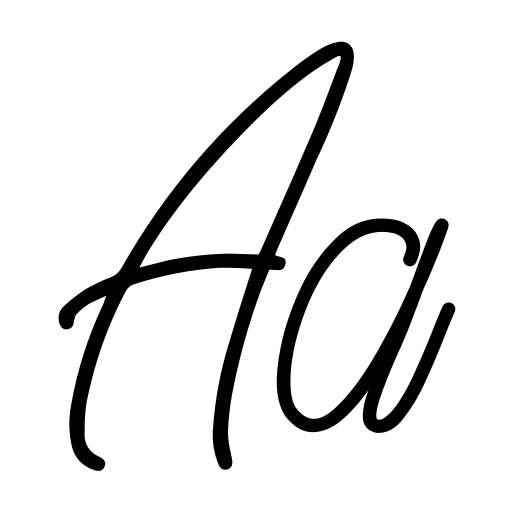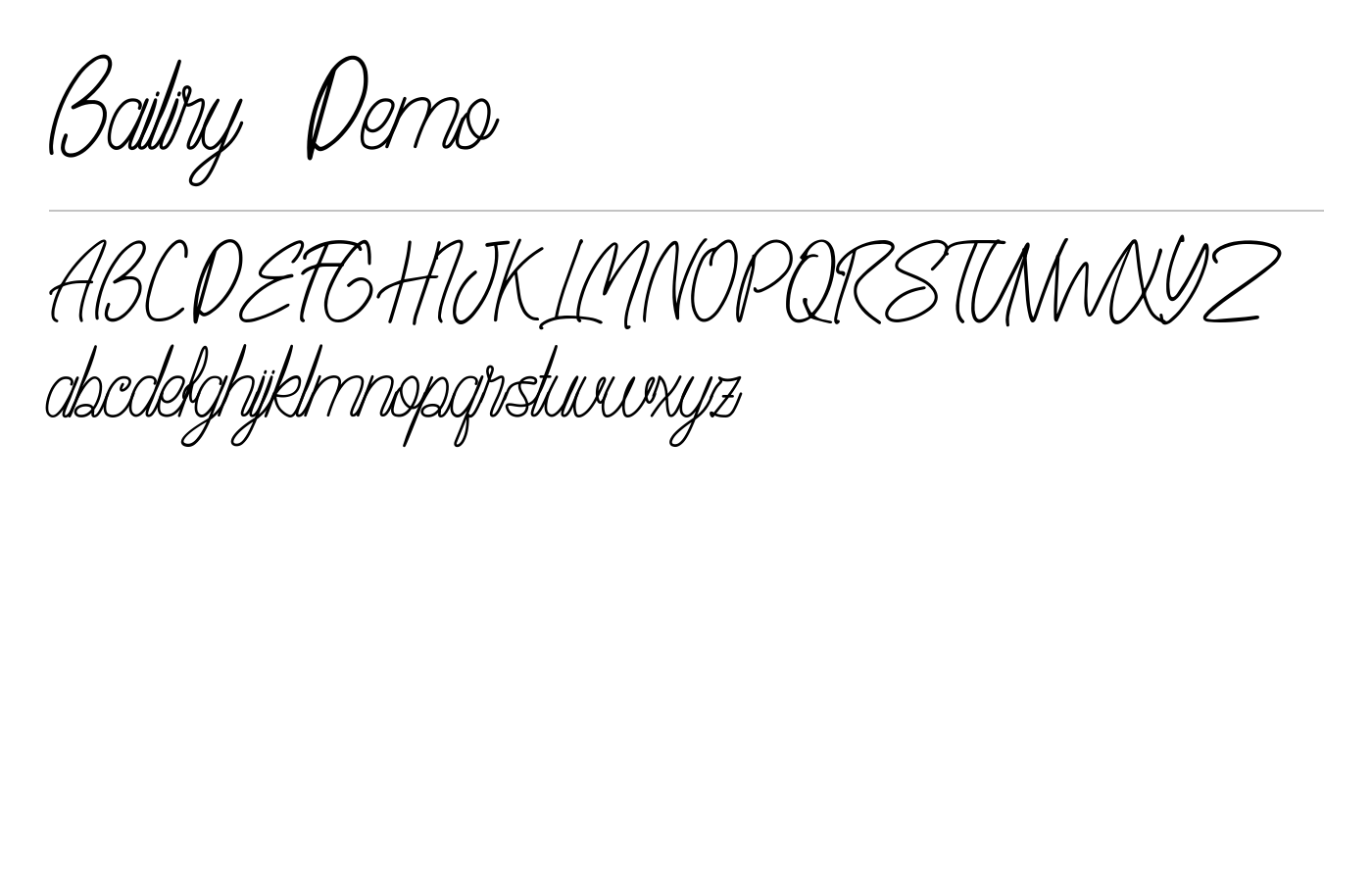
Bailiry (Demo) is a delicate and elegant handwritten script font with a light weight and slender strokes that give it a refined, flowing appearance. Its tall, narrow letterforms with smooth, continuous lines evoke a sophisticated and personal feel, making it ideal for invitations, fashion branding, or any design needing a graceful, stylish touch. This font works best in display uses like logos or headlines where its distinctive, airy nature can shine without sacrificing readability.
Bailiry (Demo) Font
About Bailiry (Demo) Font
| Font family | Bailiry (Demo) Font |
| Designer | Mabhal Studio - Abdullah, Banten - Indonesia |